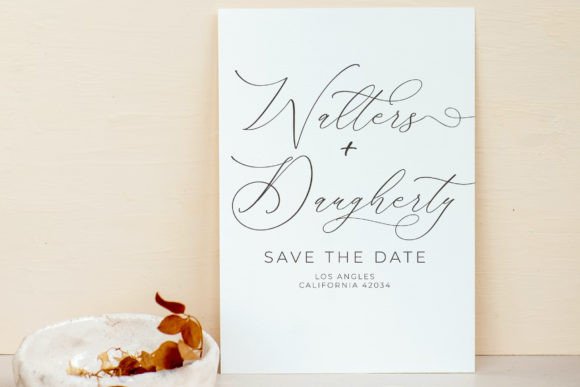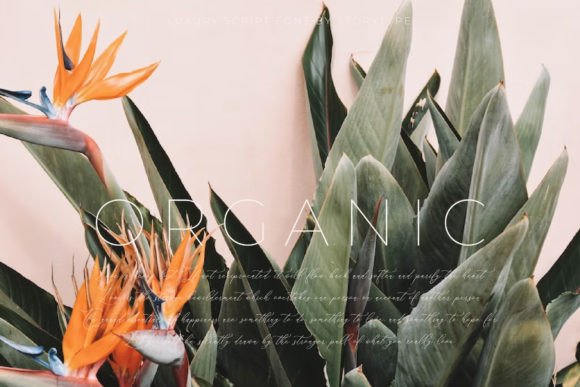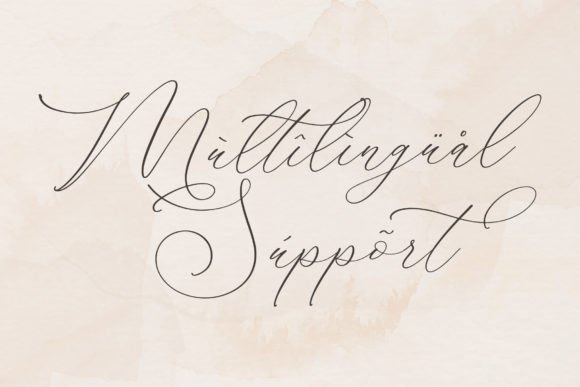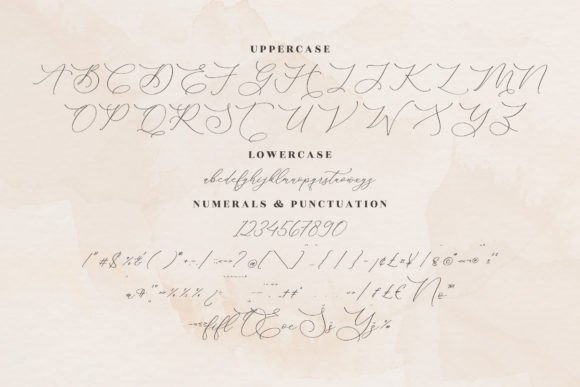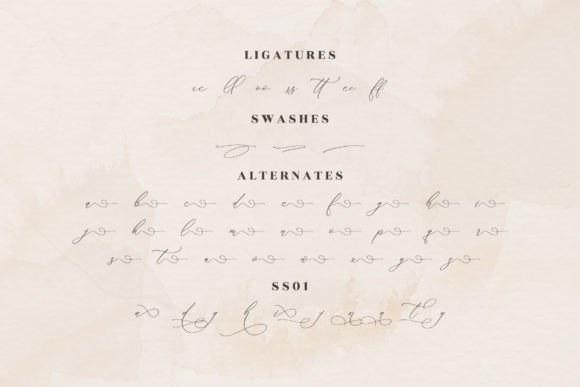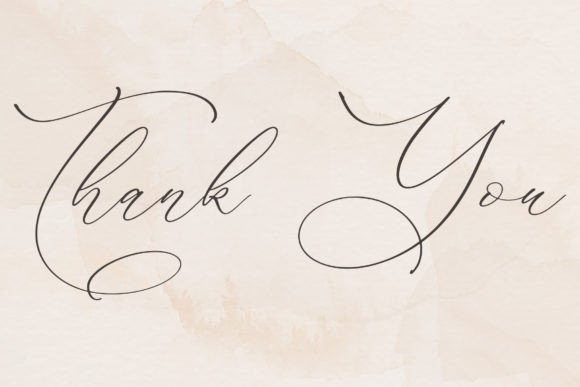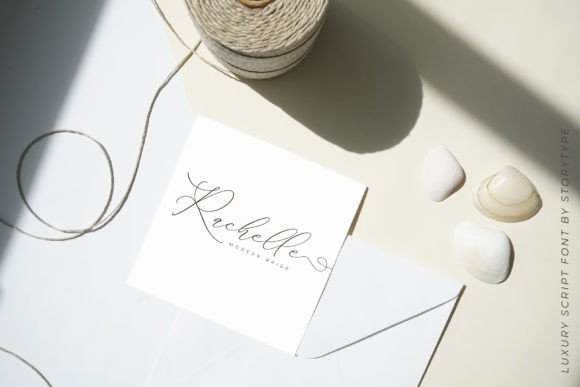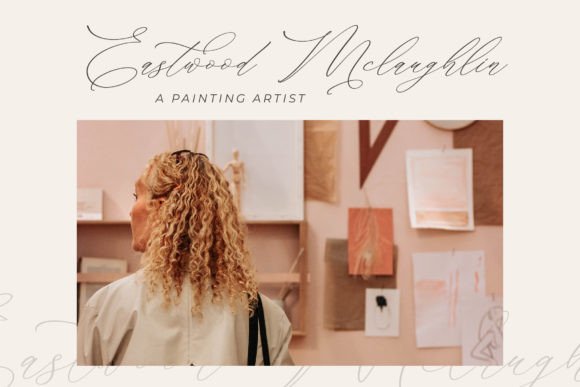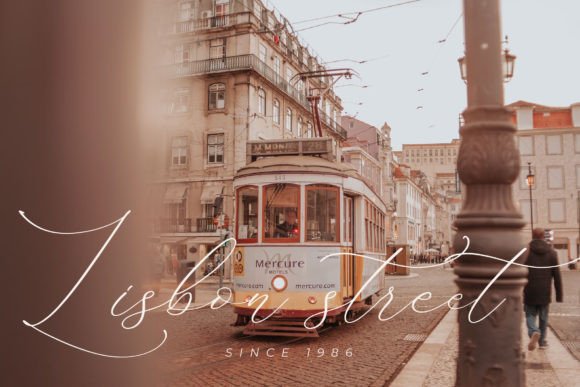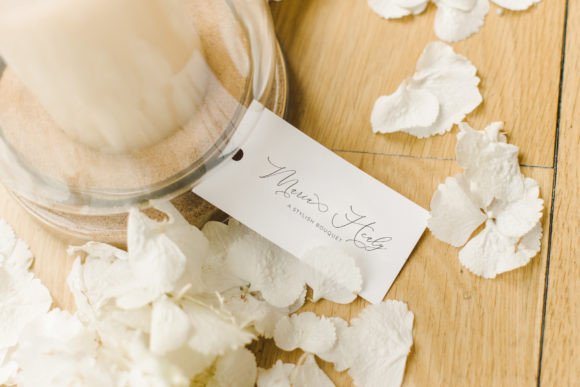
Medusa Font
About Medusa Font
“Medusa” is a captivating script font that exudes a sense of elegance and allure. Its meticulous craftsmanship and intricate detailing make it a valuable addition to your font library, with the ability to elevate the visual appeal of any creative project, regardless of the subject matter.
What sets “Medusa” apart is its PUA encoding, which provides convenient access to a wide range of glyphs and swashes, allowing you to effortlessly incorporate decorative elements into your text. This feature enhances your creative options and allows for a personalized touch in your designs.
Whether you’re working on branding, invitations, stationery, product packaging, social media graphics, or any other project, “Medusa” offers a versatile and stylish typography choice. It adds a touch of sophistication and refinement to your text, ensuring that your projects exude an air of timeless beauty.
Visualize using “Medusa” for your brand identity and how it communicates elegance and allure to your target audience. Picture incorporating this font into your wedding invitations, setting the tone for a truly memorable celebration. When you select “Medusa” for your product packaging, it conveys a sense of luxury and attention to detail.
In conclusion, “Medusa” is more than just a font; it’s a design tool that brings a sense of sophistication and allure to your creative projects. Its dazzling and meticulously crafted style makes it a versatile choice for a wide range of applications, and its PUA encoding empowers you to explore numerous decorative options. Make “Medusa” a part of your font collection, and let it enhance your designs, making them truly captivating and memorable.